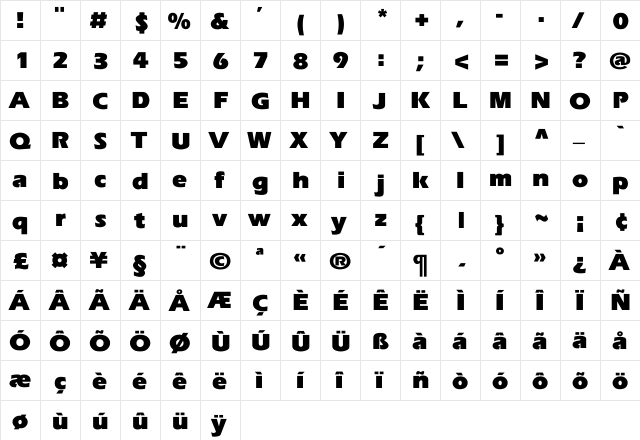
ItcEras-Demi-Bold Regular
Design Context for ItcEras-Demi-Bold Typeface
ItcEras-Demi-Bold takes a measured approach to typography — its balanced proportions and neutral character make it a reliable workhorse for both digital and print work. The heavy weight commands attention and anchors typographic hierarchies.